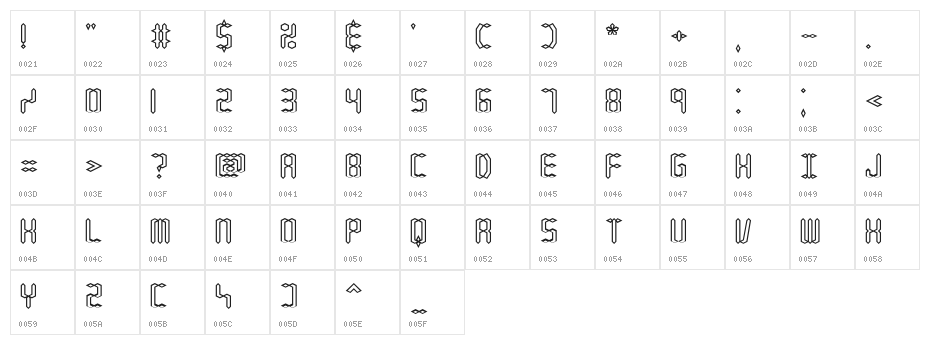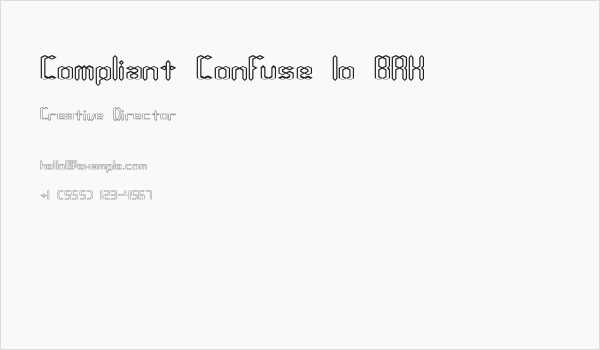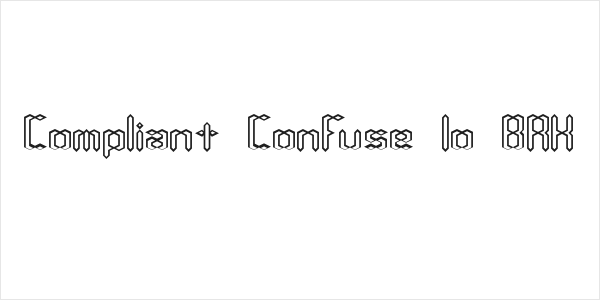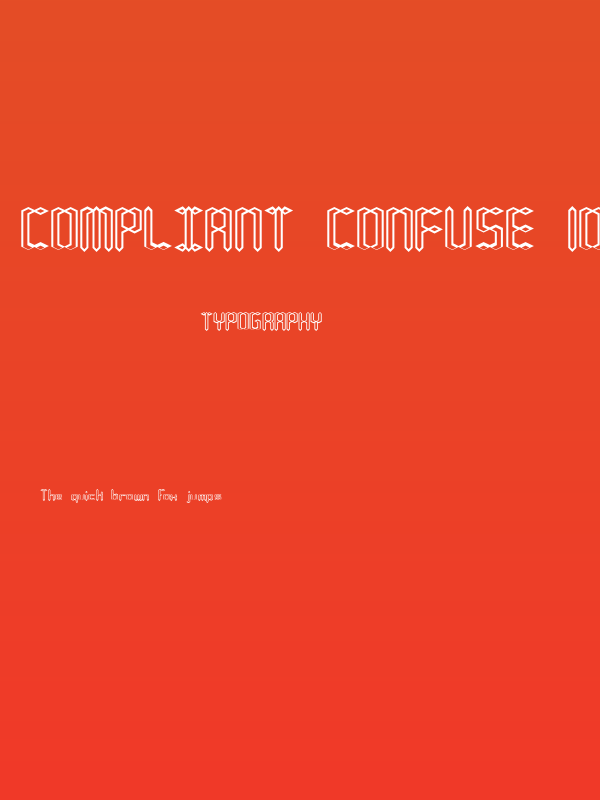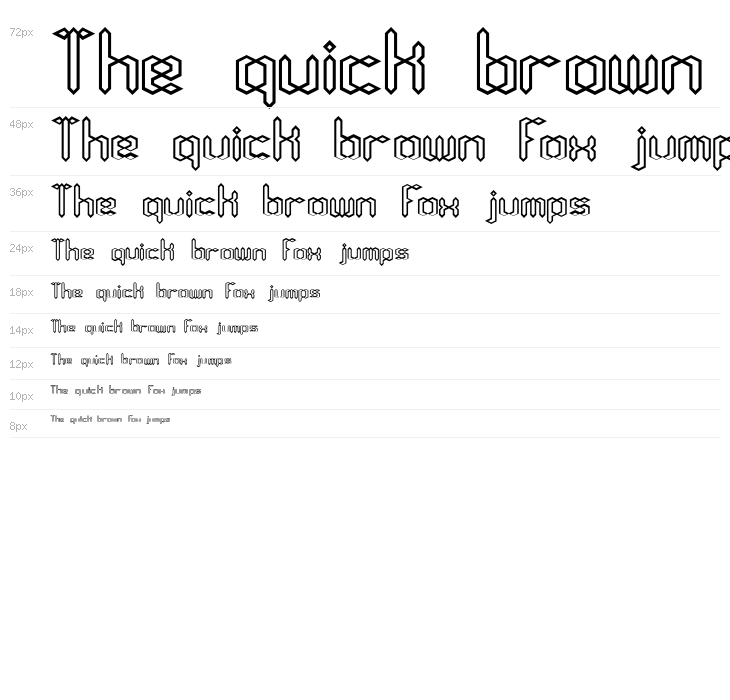
Compliant Confuse 1o BRK Font
Compliant Confuse 1o BRK Description
This font features a unique geometric design with interconnected lines forming each character. The angular shapes and sharp edges give it a futuristic and mechanical appearance. Each letter is constructed with a consistent pattern of lines that create a sense of depth and complexity. The uppercase and lowercase letters maintain a uniform style, while the numbers and special characters follow the same intricate design. The overall look is bold and eye-catching, making it suitable for projects that require a modern and edgy aesthetic.
| Proposed Projects | Ideal for sci-fi themed designs, video game graphics, posters, and branding that requires a modern and edgy look. |